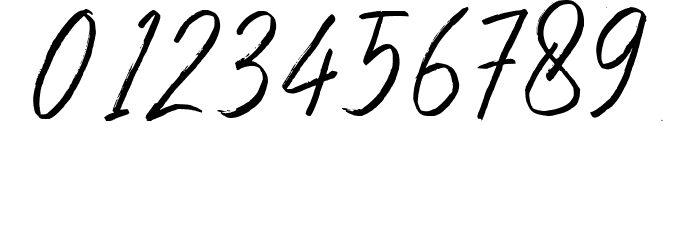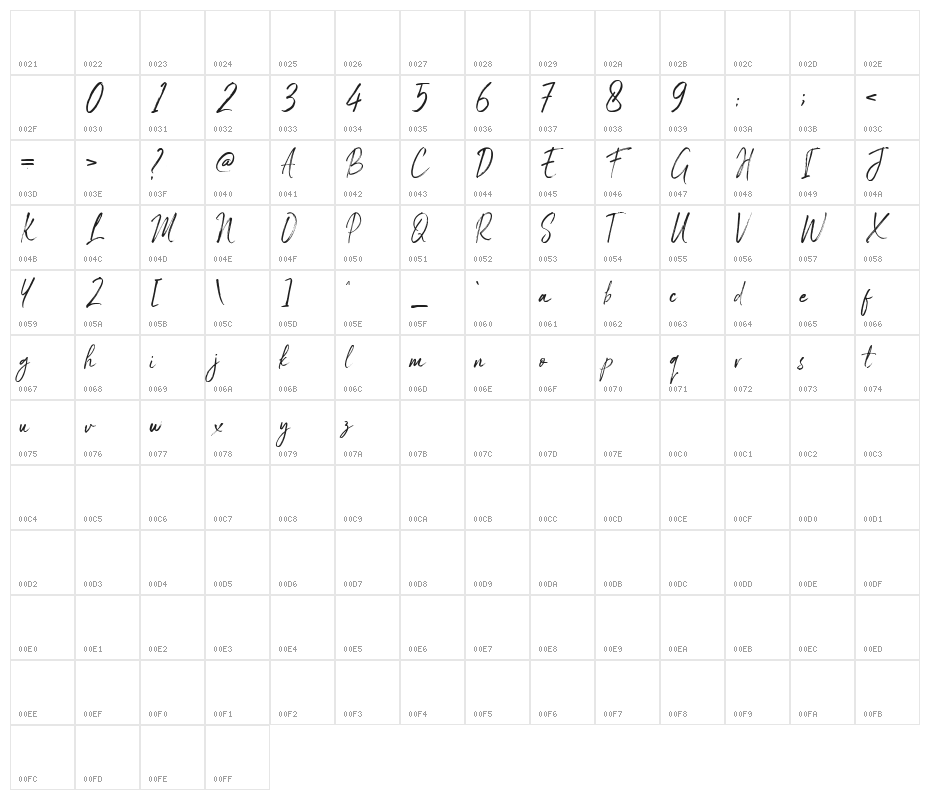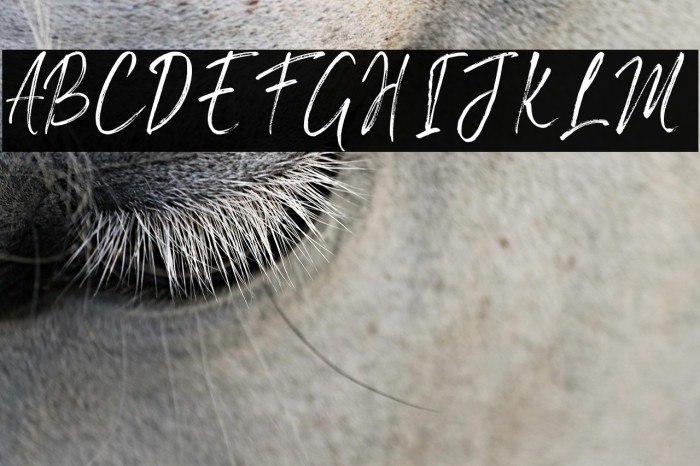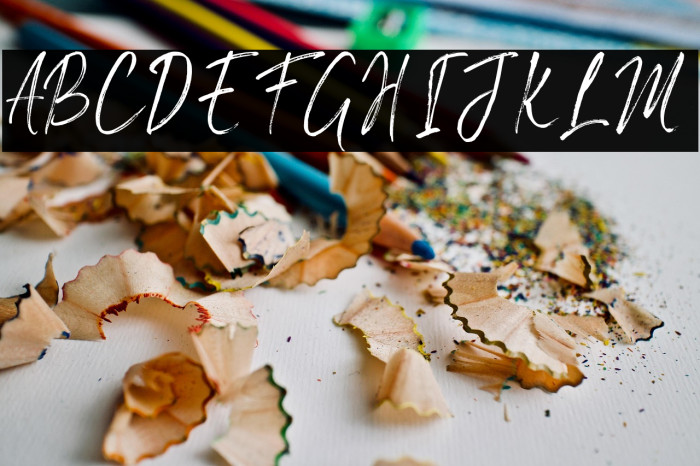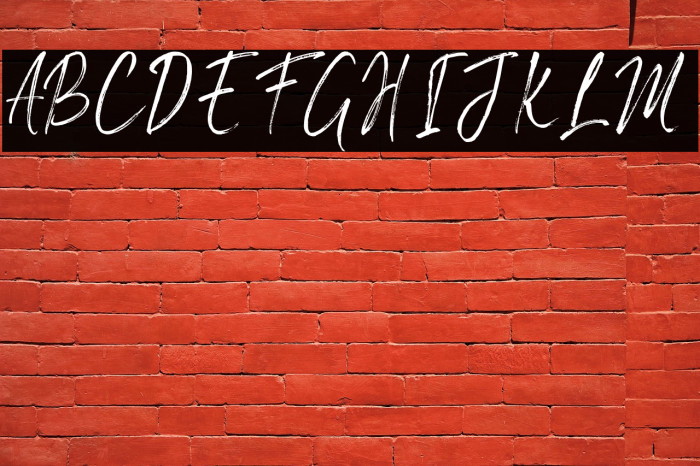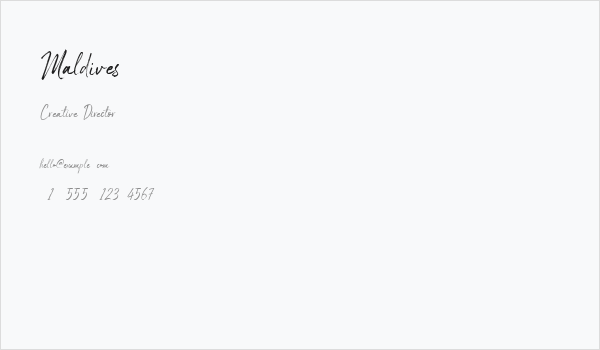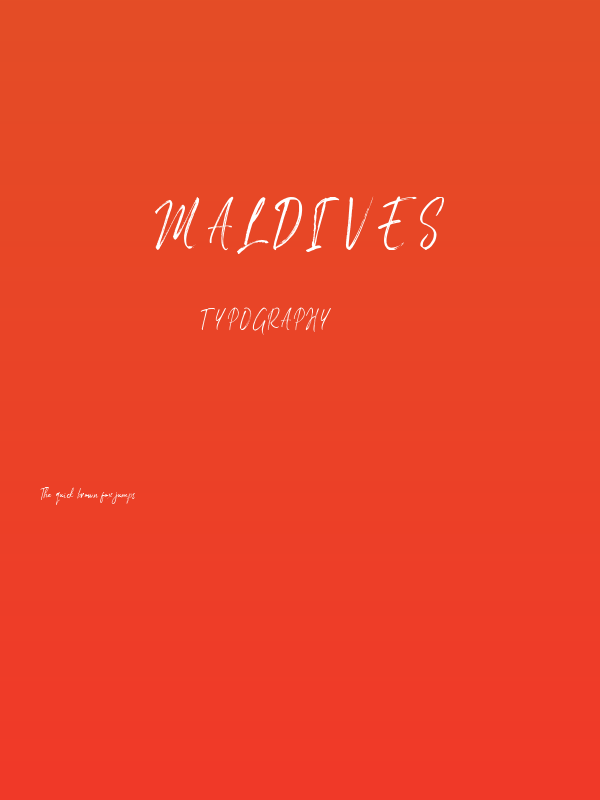
Maldives Font
Maldives Description
This font exhibits a dynamic and expressive handwritten style, characterized by fluid and sweeping strokes that convey a sense of elegance and spontaneity. The uppercase letters are bold and slightly slanted, giving them a dramatic flair, while the lowercase letters maintain a consistent flow with a more delicate touch. The numerals are distinct and maintain the same energetic style, ensuring readability while adding a touch of personality. The overall appearance is both artistic and legible, making it suitable for creative projects that require a personal touch.
Use CaseLogos, Headlines, Invitations
Proposed ProjectsIdeal for wedding invitations, greeting cards, personal branding, and artistic posters.